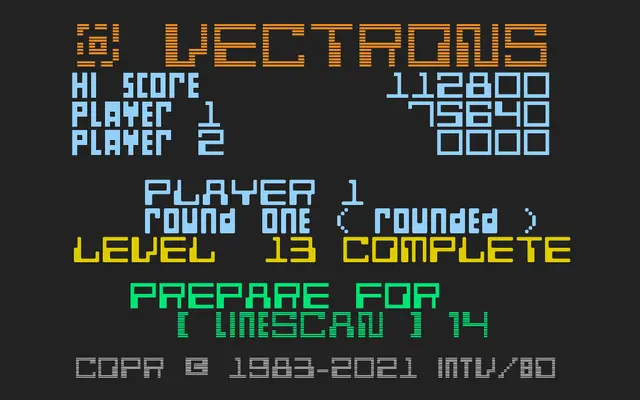
BD Vectrons
Type Different · 2021
An 8-bit retro pixel font in three stylistic variants — Regular, Linescan and Rounded — designed for mixing and matching to create an authentic lo-fi game aesthetic.
Released in 2021, it draws on the visual language of classic video game displays, offering three distinct cuts that work best in combination. Alternate uppercase glyphs and the contrasting styles of Linescan and Rounded give designers room to vary the texture of a layout. Coverage is limited to Basic Latin and a modest set of supplementary characters, so it suits display and titling use rather than long-form text.
An 8-bit style pixel font designed to evoke retro video game aesthetics, placing it firmly in the display category with a pixel or bitmap subcategory.